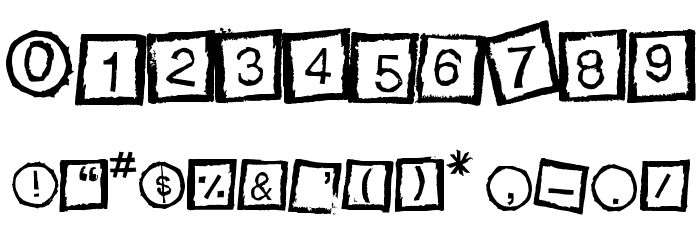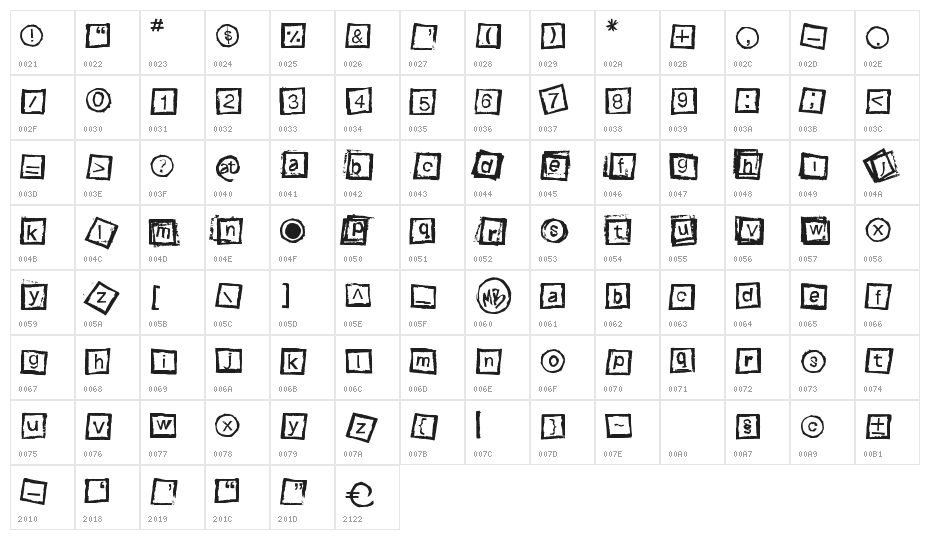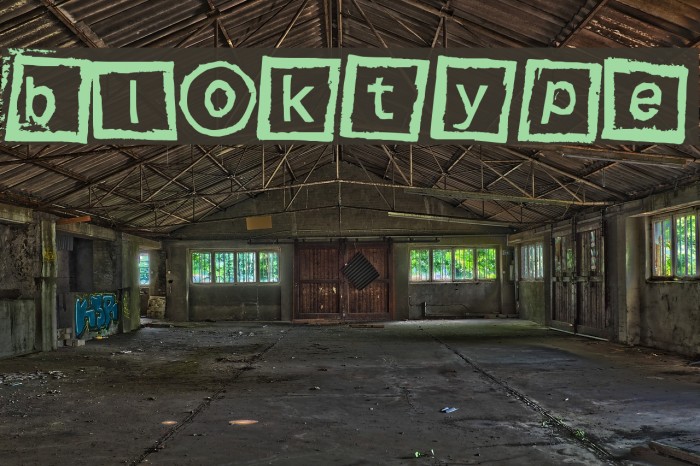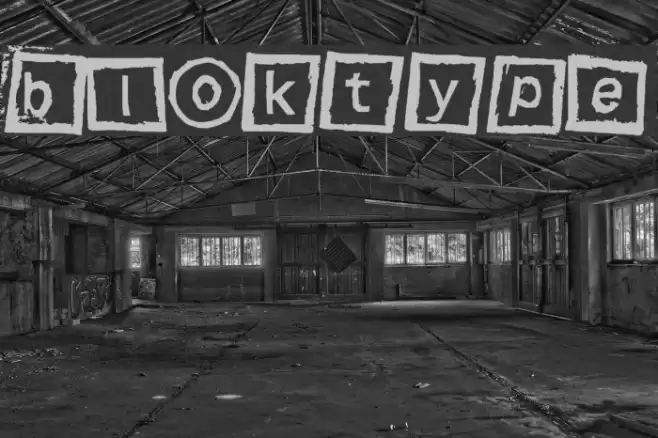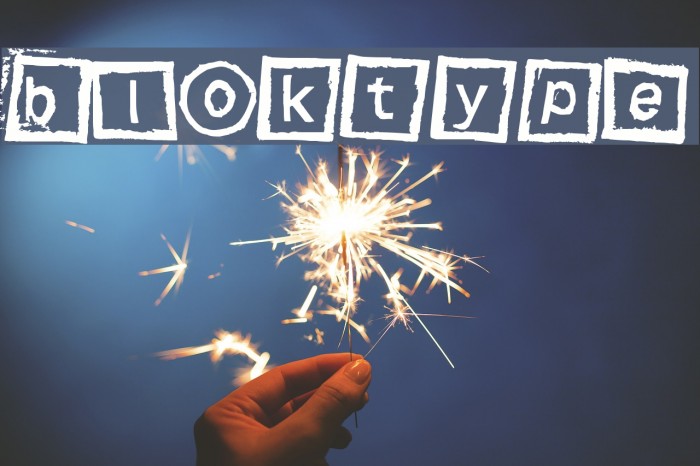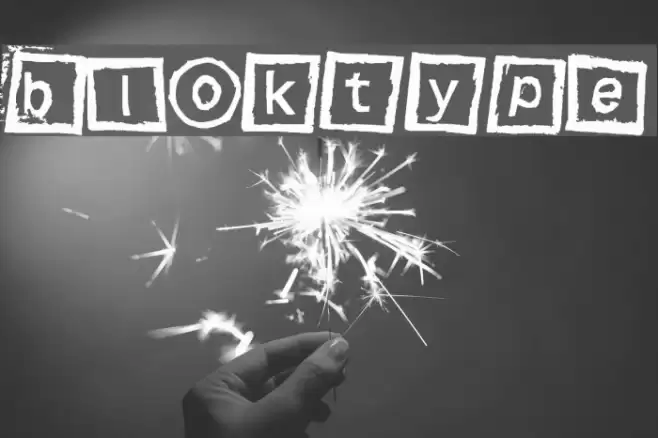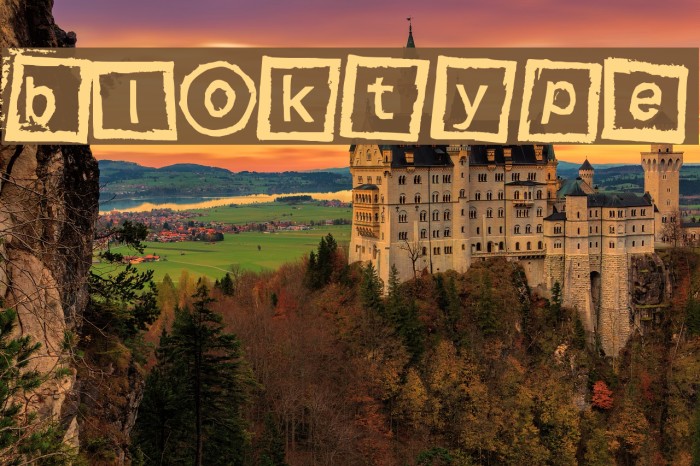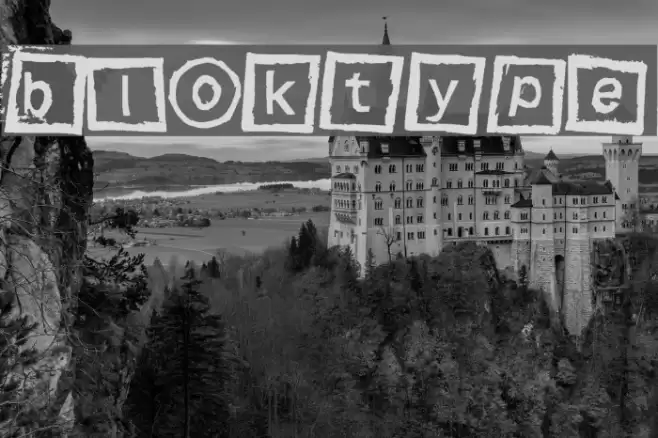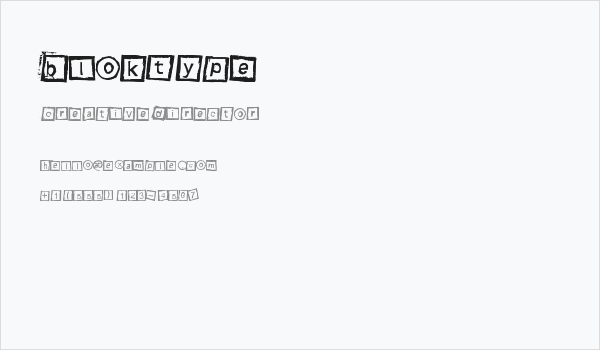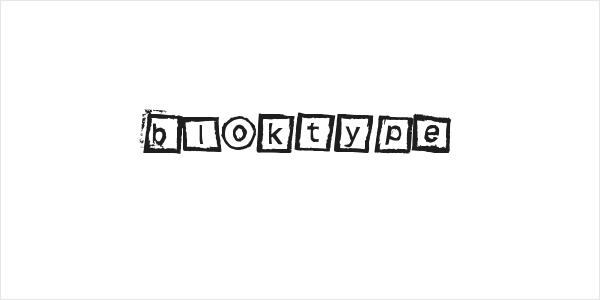
Bloktype Font
Bloktype Description
This font features a unique, grungy style with each character enclosed in a rough, uneven square. The letters and numbers appear as if they were stamped or printed with a distressed effect, giving them a rugged and edgy appearance. The irregular outlines and varying thickness of the strokes add to the chaotic and handmade feel, making it stand out as a bold and artistic choice. The font maintains legibility despite its unconventional design, with each character clearly distinguishable. This style is perfect for projects that require a raw, urban, or rebellious aesthetic.
| Overall Style | Grunge, Urban, Artistic |
| Use Case | Logos, Posters, Artistic projects |
| Proposed Projects | Ideal for album covers, street art-inspired designs, posters, and edgy branding projects. |